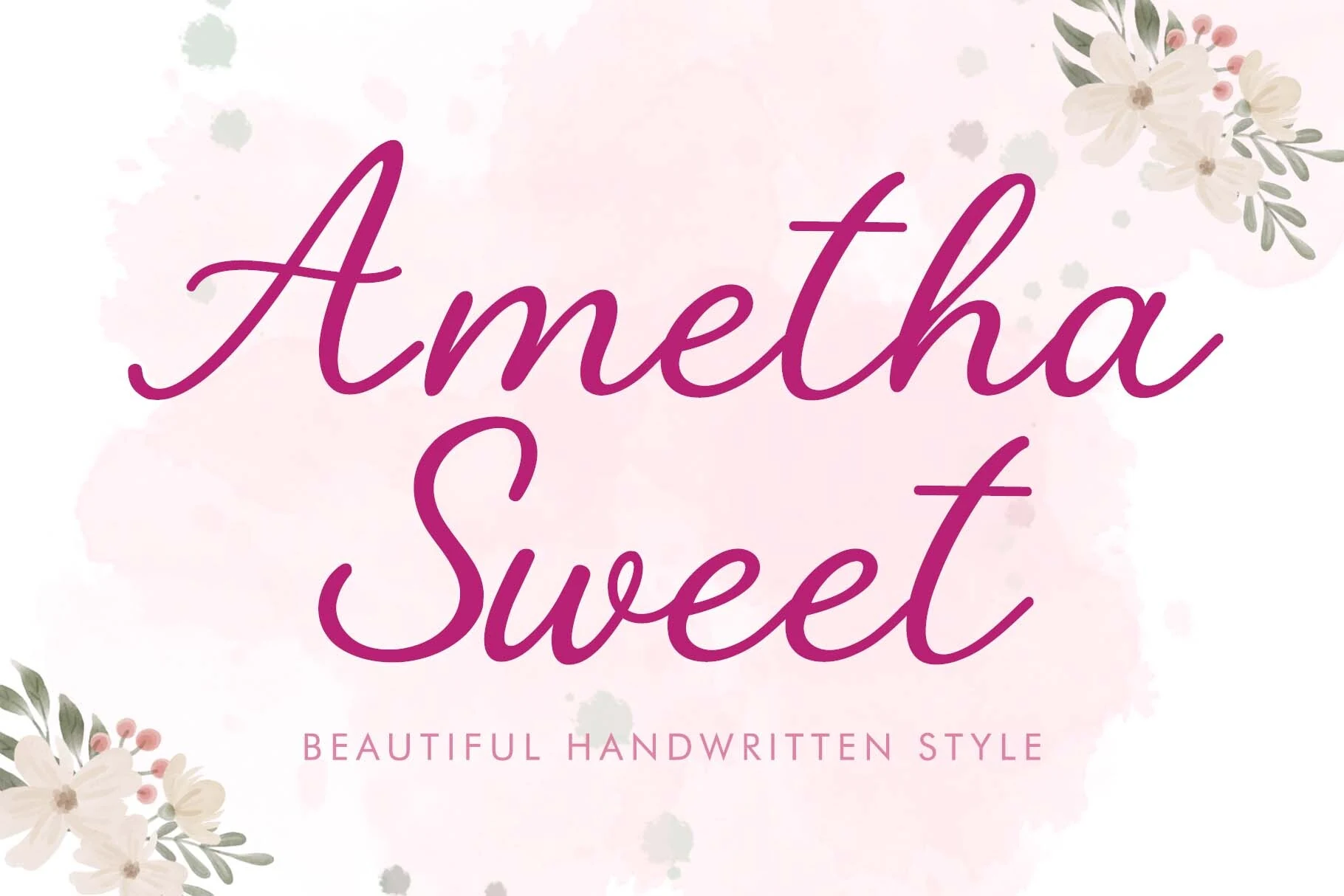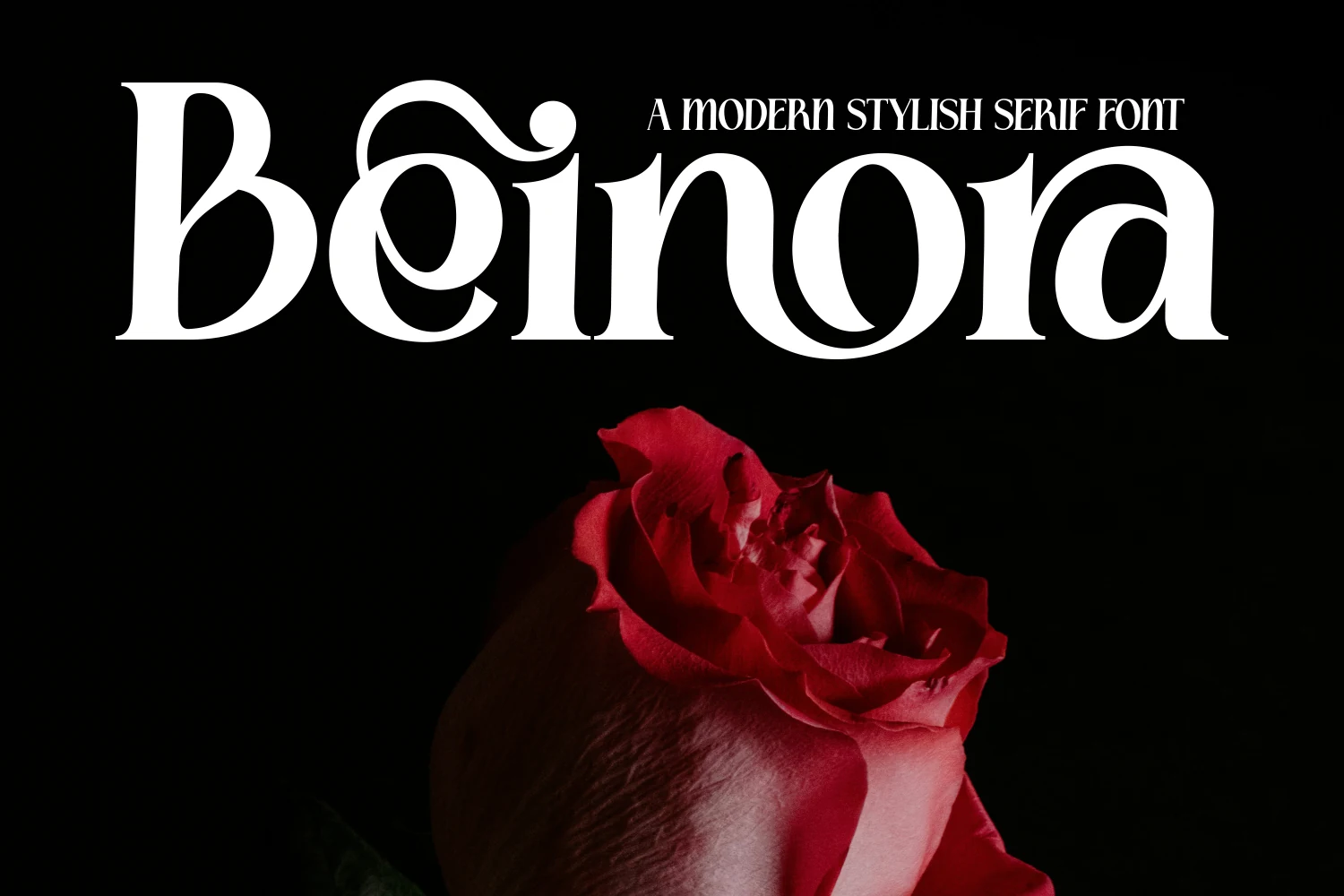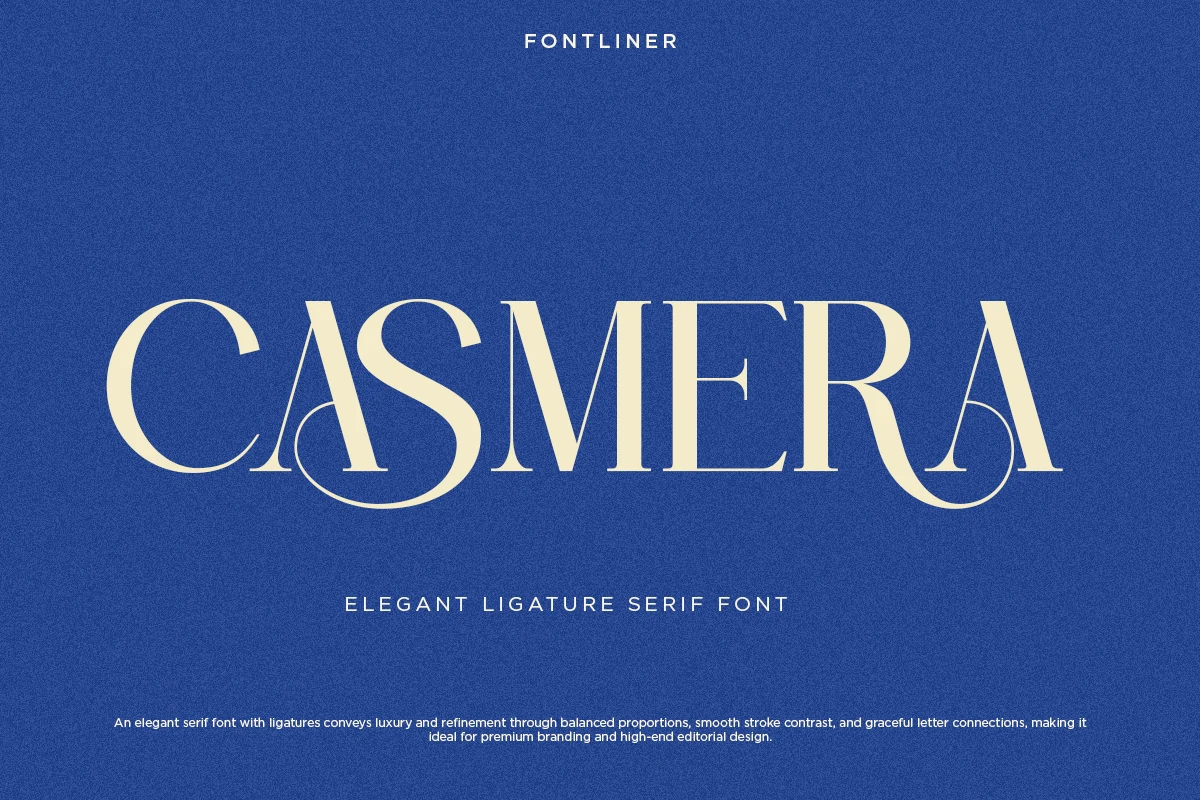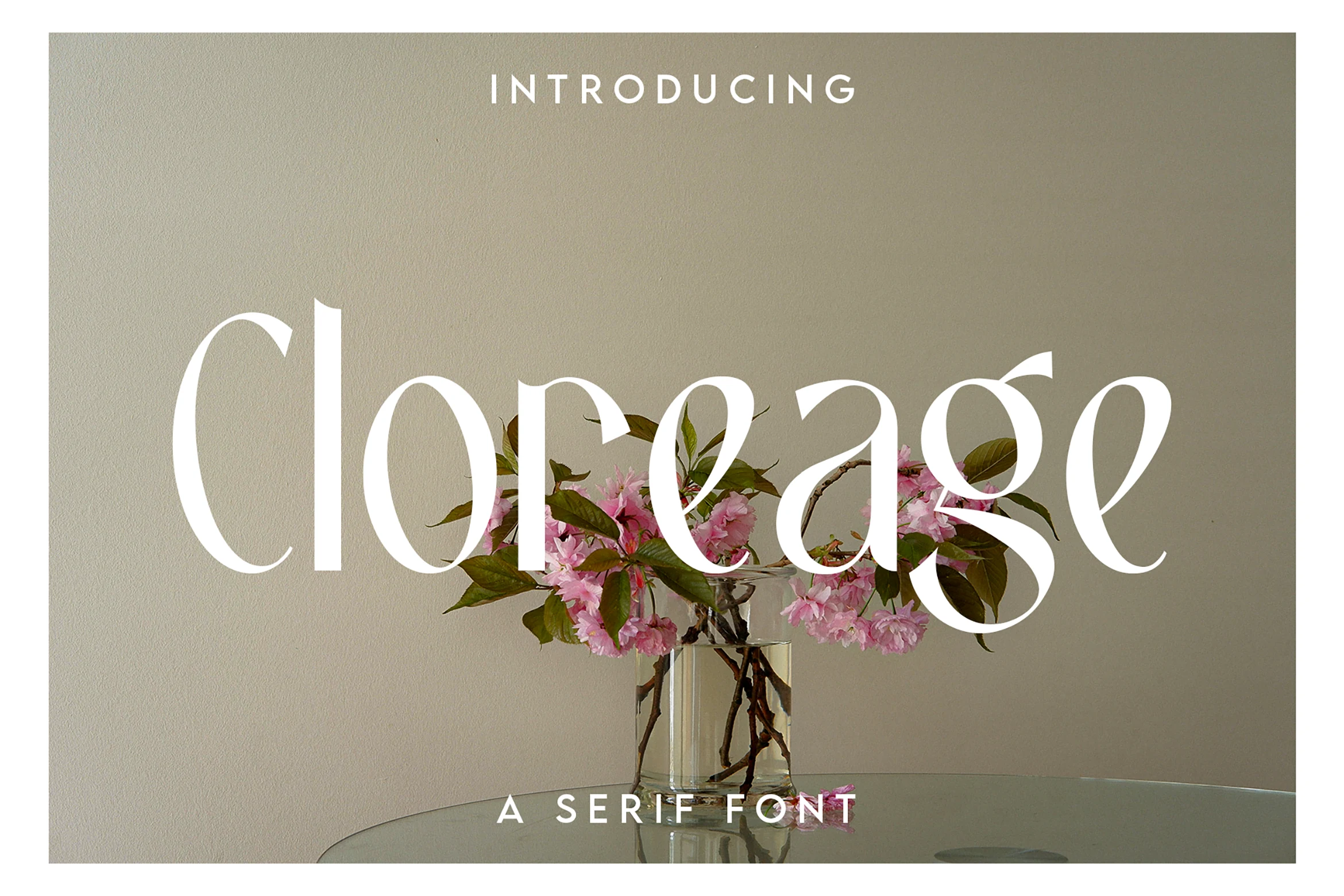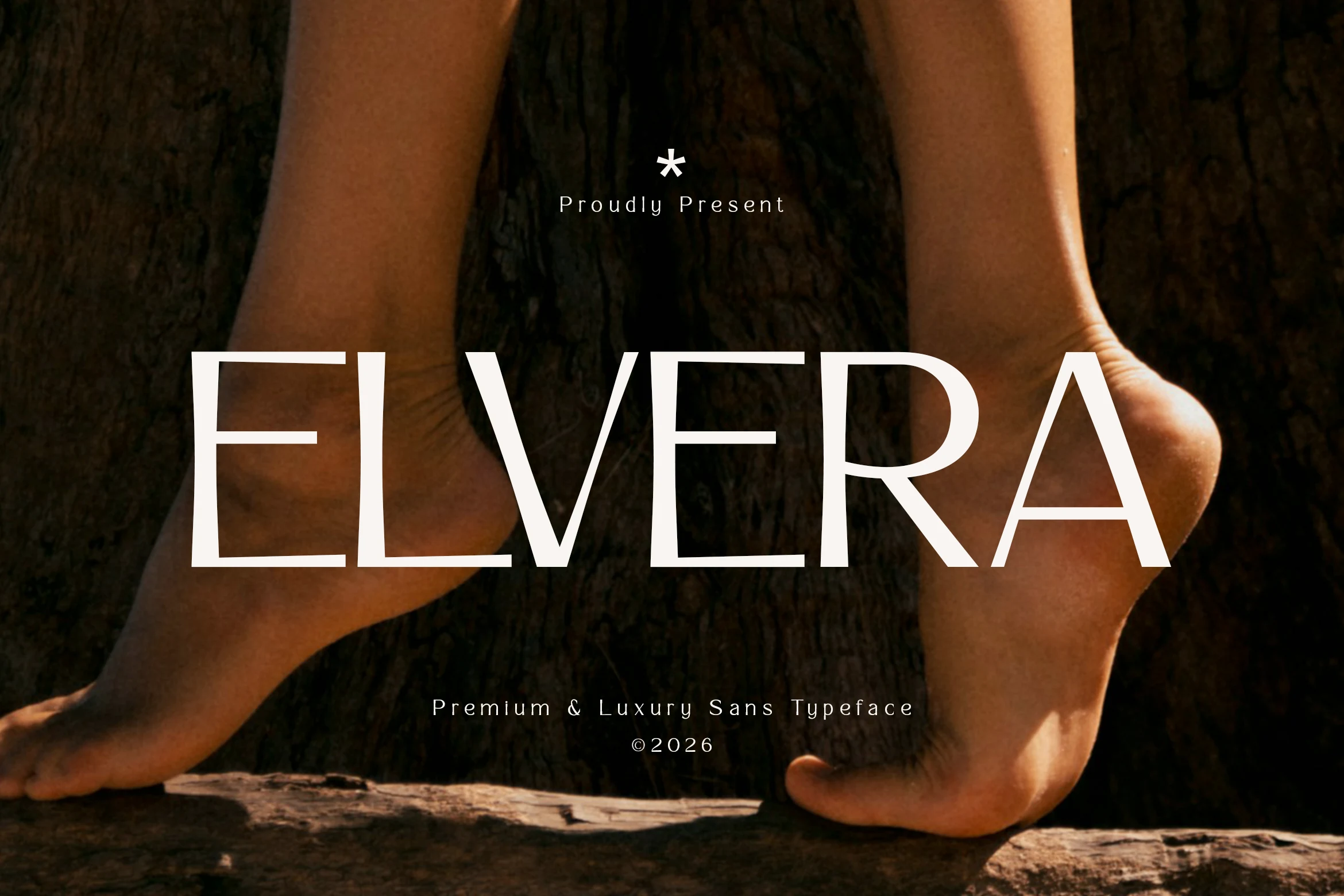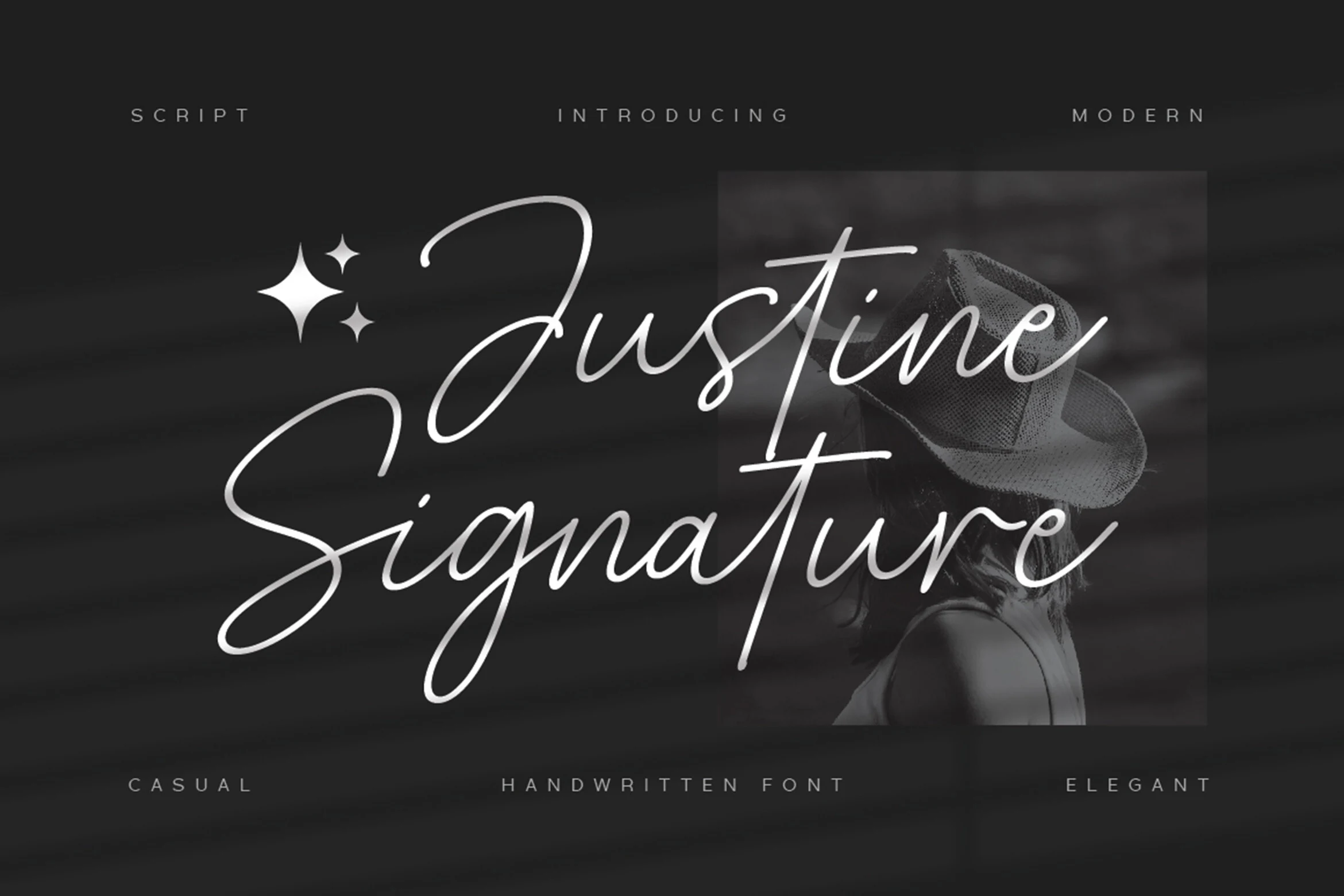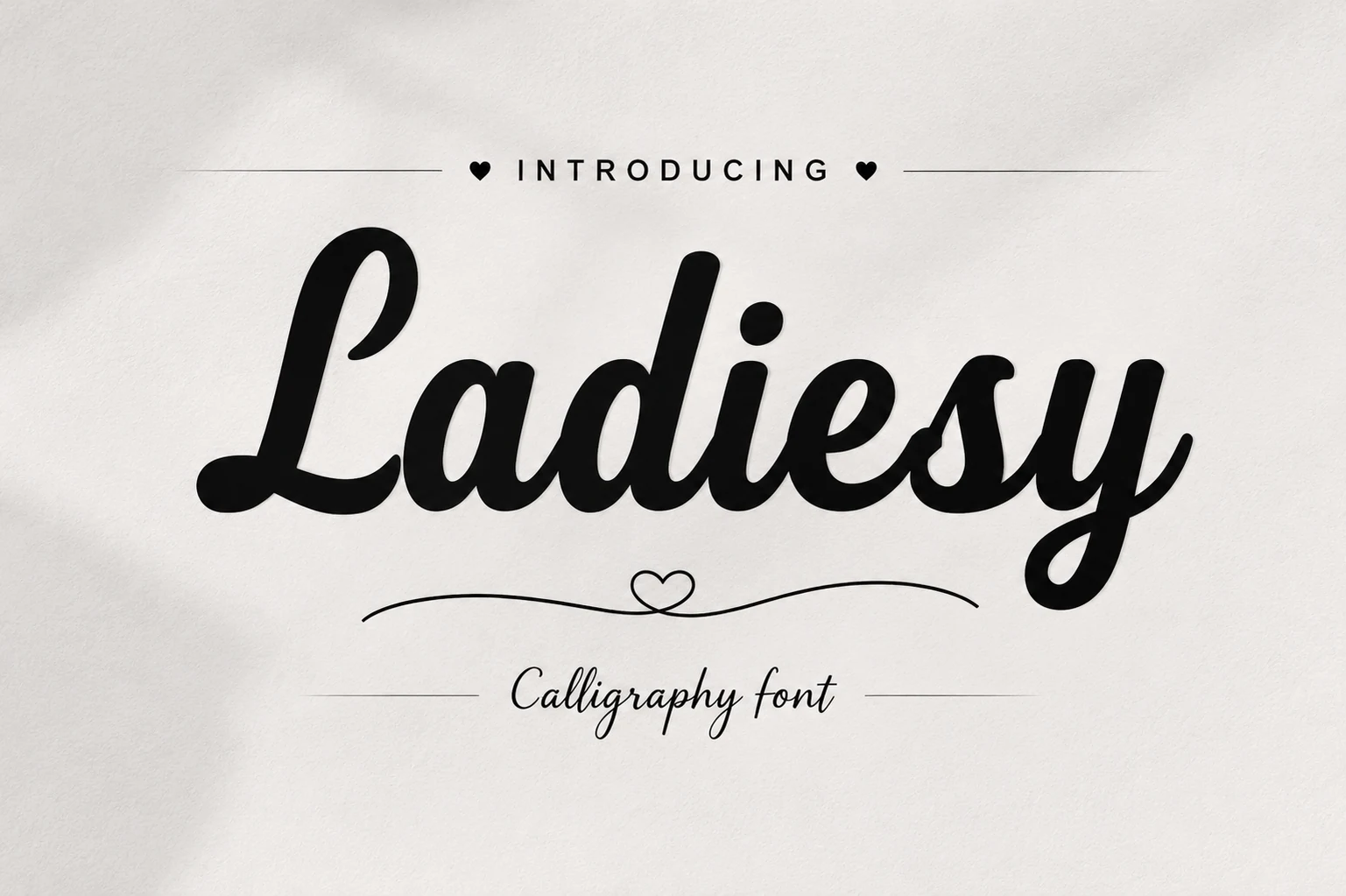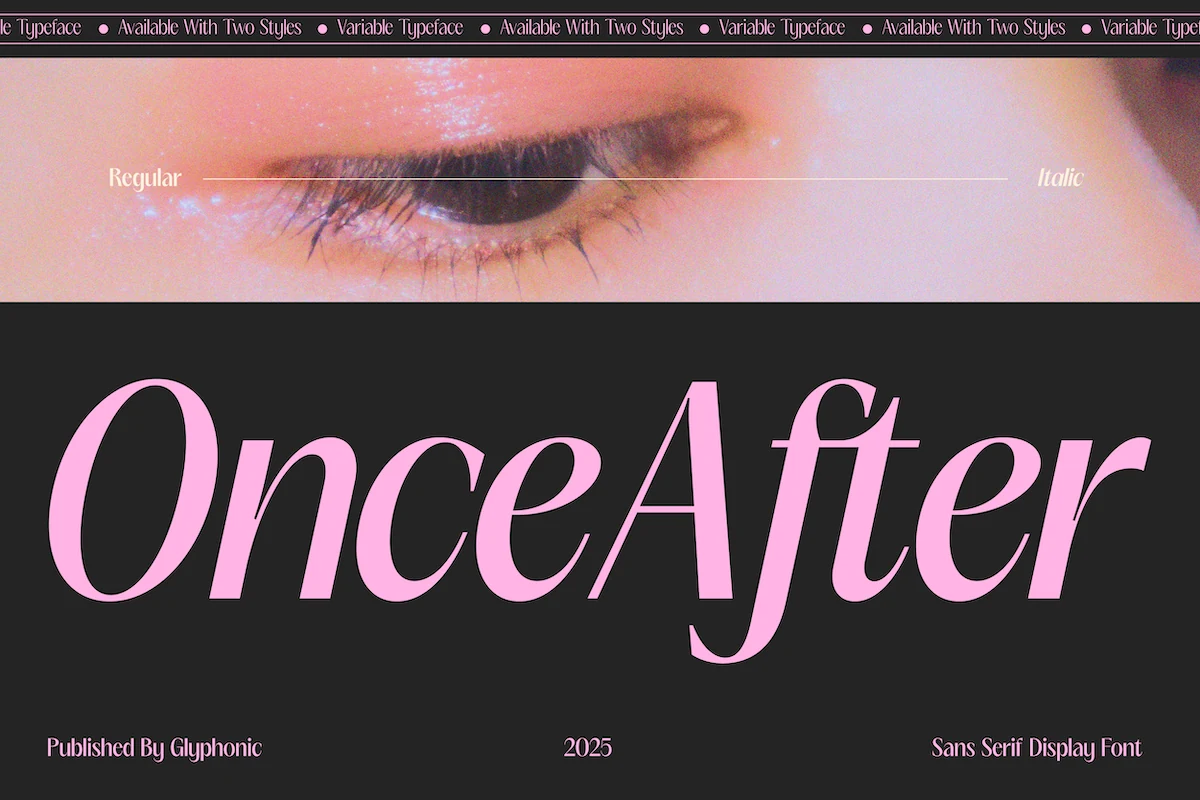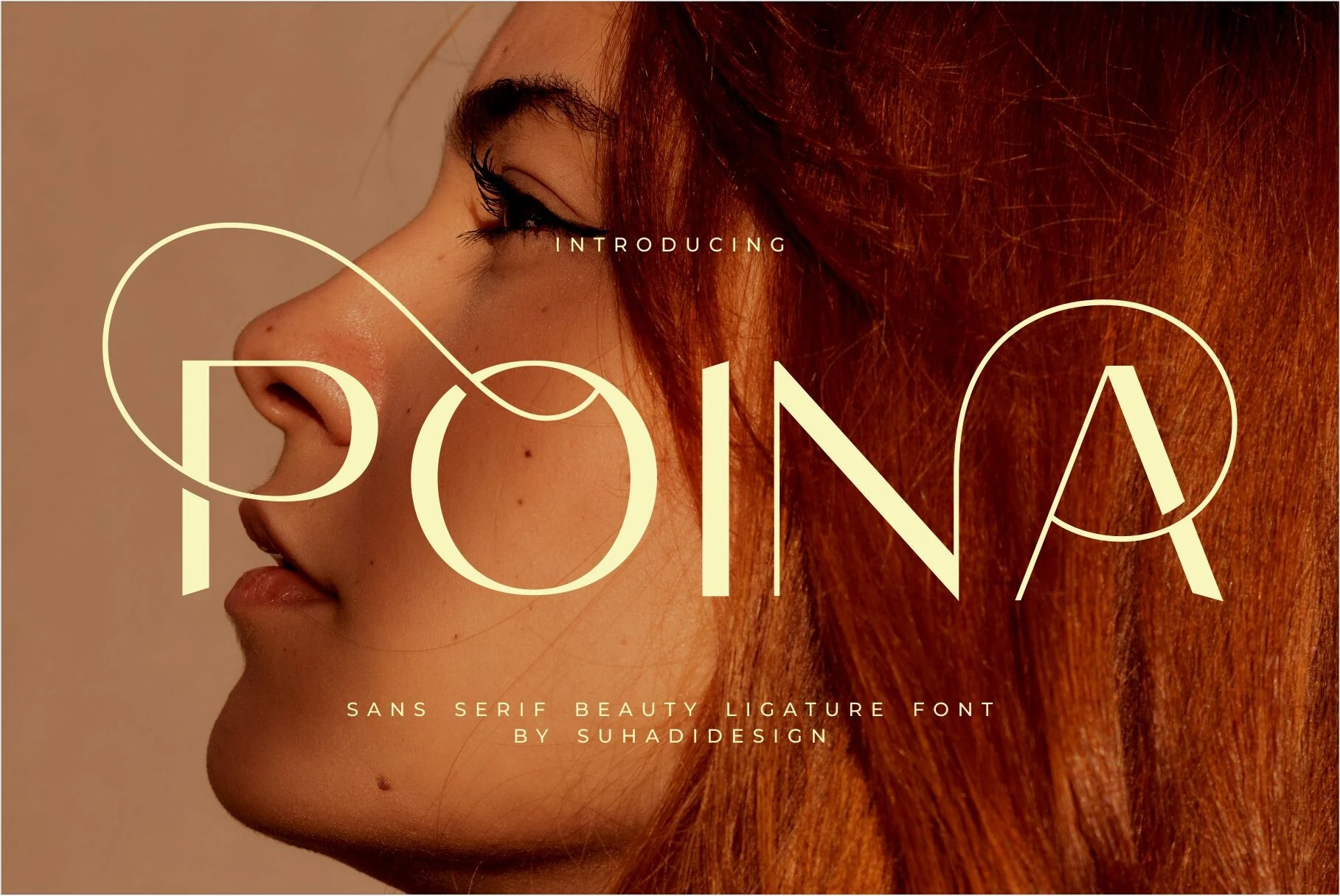
15 Stunning Beauty Branding Fonts for Elegant Designs
Beauty branding fonts help skincare, cosmetics, salon, and boutique brands look polished from the first glance. This collection is built for logos, packaging, labels, social graphics, and editorial layouts where typography needs to feel elegant, feminine, modern, or premium.
Elegant Serif Beauty Branding Fonts
These high-contrast serif fonts suit luxury beauty logos, skincare packaging, boutique labels, and editorial headers that need refinement, contrast, and a premium finish.
Aroms Font
Aroms Font preview with high-contrast modern serif letters and curved ligature shapes
AROMS Font has a high-contrast serif voice with razor-thin hairlines, heavy vertical stems, and rounded bowls that keep the wordmark polished rather than decorative. The preview shows a sculptural A with a curved interior stroke, a broad circular O, and a dramatic S that gives short words a luxury editorial silhouette.
For Beauty Branding Fonts, its ligature-driven style is most useful in logos, cosmetic labels, and magazine-style headers where the type can carry the identity on its own. Keep the tracking moderate and avoid cramped small text; the fine strokes and sharp terminals need clean contrast to stay crisp.
Shedia Font
Shedia Font preview with elegant high-contrast serif letters and curled terminals
Shedia Font is a polished serif with fine contrast, smooth curves, and flowing terminals that give each word a soft editorial finish. The oversized preview shows a wide, sweeping S, rounded counters, and elegant descenders, so the font feels refined without becoming stiff or overly formal.
For Beauty Branding Fonts, Shedia works best where the name needs to feel premium but still readable: cosmetic marks, packaging titles, wedding stationery, and lifestyle headers. Use clear contrast behind the letters and keep title hierarchy simple, because the curled terminals already provide the visual movement.
Zacorsea Font
Zacorsea Font preview in elegant high-contrast serif capitals with wide spacing
Zacorsea Font has the kind of poised contrast that immediately reads premium: tall capitals, fine hairlines, and smooth sweeping curves balanced by crisp serif details. In the preview, the generous spacing and the distinctive linked curve through the middle letters give the wordmark a calm, expensive rhythm rather than a rigid formal feel.
If you’re building Beauty Branding Fonts into a visual identity, Zacorsea is especially strong for skincare names, luxury logos, and refined packaging where a few words need to carry the whole mood. Its ligatures help headlines feel polished, but the font looks best with room to breathe and simple supporting type that doesn’t compete with the elegant shapes.
Editorial Style Font
Editorial Style Font preview with high-contrast black serif display lettering and italic editorial shapes
Editorial Style Font is a display serif with strong magazine character: angled stress, sturdy verticals, crisp serif cuts, and enough contrast to feel polished without becoming fragile. The preview shows a slanted rhythm and compact spacing, so the type reads fashionable and direct rather than overly ornamental.
For Beauty Branding Fonts, it works well on labels, campaign titles, and refined wordmarks where the text needs authority with a softer editorial edge. Keep tracking controlled instead of loose; the italic movement already adds energy, while quiet supporting type will keep the hierarchy clean.
Cloreage Font
Cloreage Font preview in white minimalist serif lettering with refined curves and high contrast
Cloreage Font leans into quiet editorial elegance, with tall proportions, fine hairlines, and smooth curves that keep the serif structure light rather than rigid. The narrow stems, rounded bowls, and graceful sweep of the g give the wordmark a polished rhythm that feels soft, airy, and considered.
That balance makes it a strong choice for Beauty Branding Fonts, especially in logos, invitation headings, and lifestyle packaging where a few words need to carry the mood. It performs best at display size with generous margins and restrained supporting type, so the contrast and delicate terminals stay crisp.
Beinora Font
Beinora Font preview with high-contrast white serif letters, bold curves, and decorative swashes
Beinora Font is built around sharp thick-to-thin contrast, with broad rounded bowls, narrow hairlines, and curled serif details that make the letters feel dramatic but controlled. The preview shows a heavy capital B, looping inner curves, and a teardrop-style accent on the i, giving the wordmark a rich cosmetic-campaign presence.
Conclusion
Choosing beauty branding fonts depends on the role of the type. Use high-contrast serifs for luxury skincare and editorial packaging, clean modern styles for fashion-led identities, scripts for personal or feminine brands, and bold retro fonts when the design needs stronger product-shelf impact.